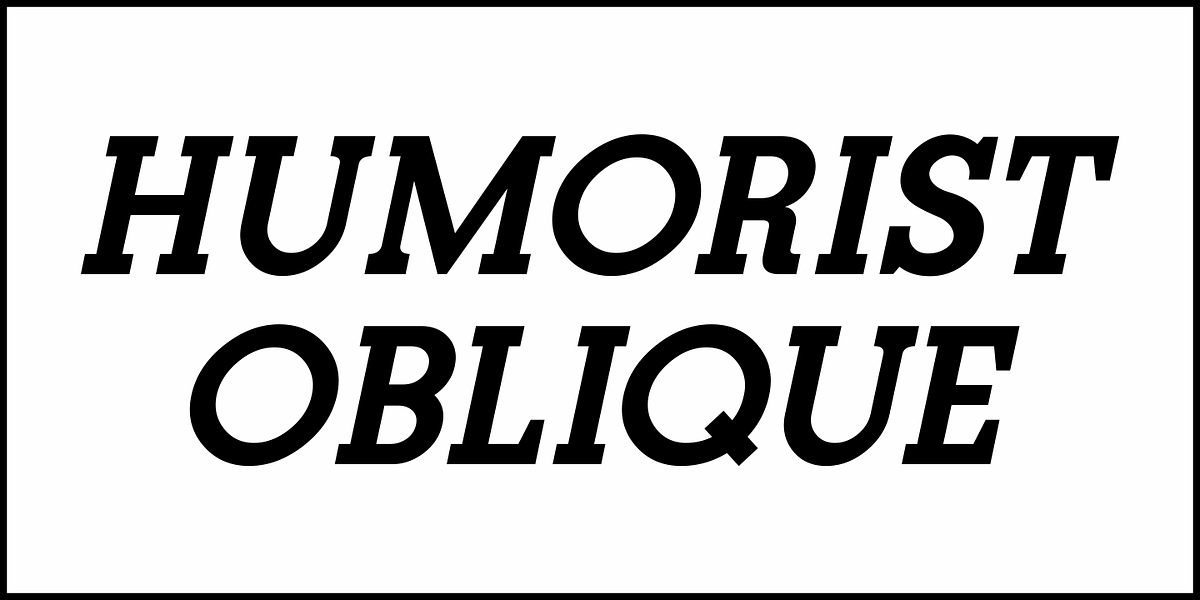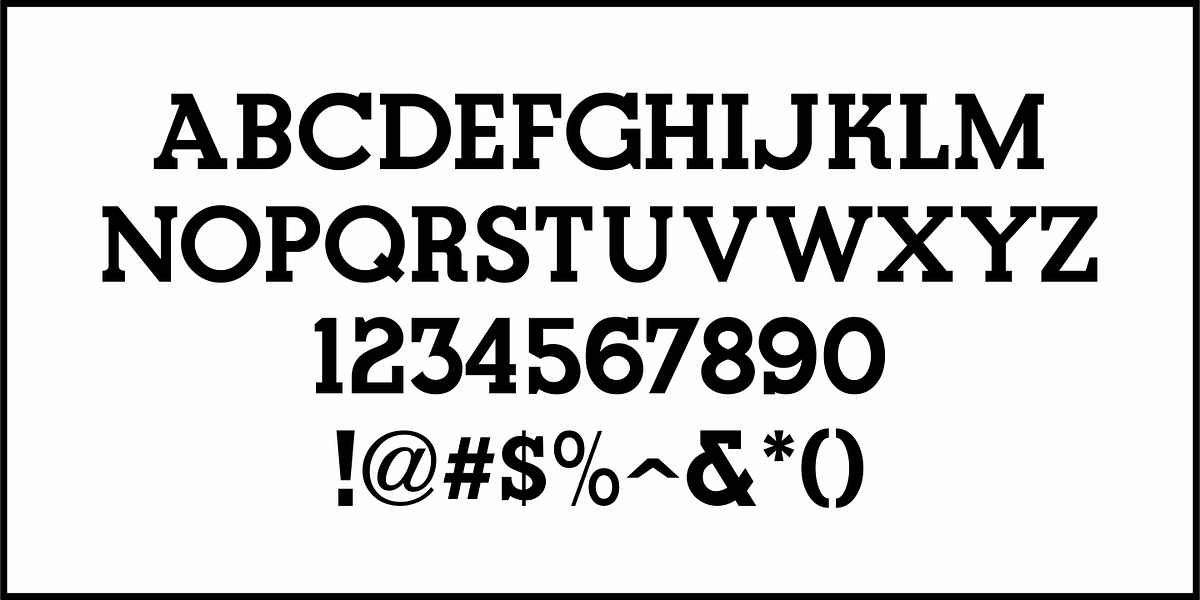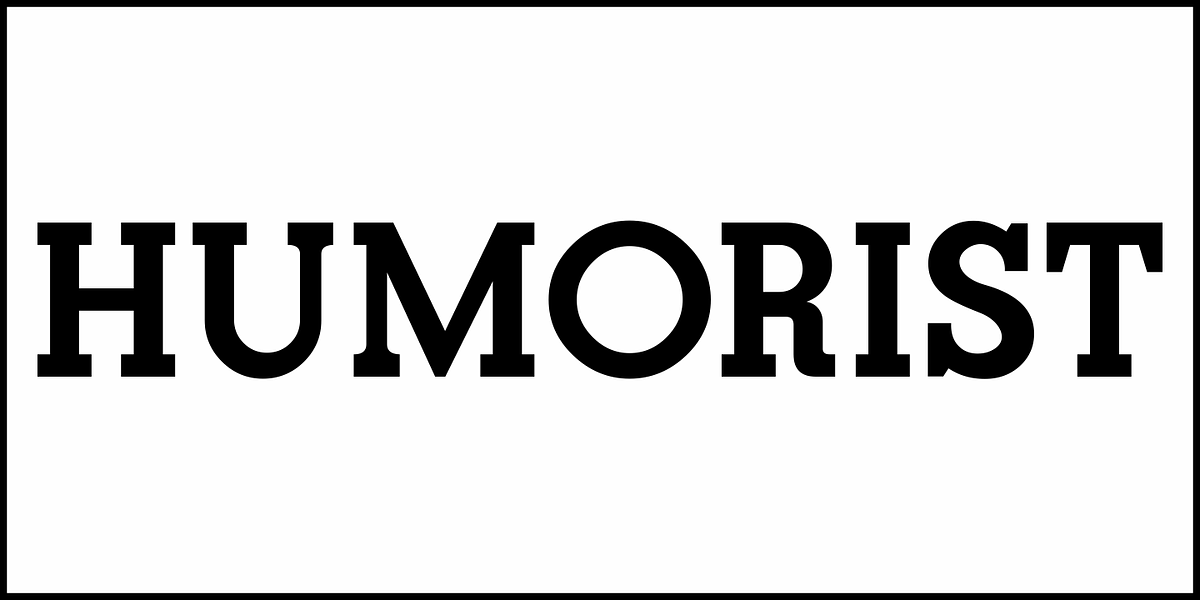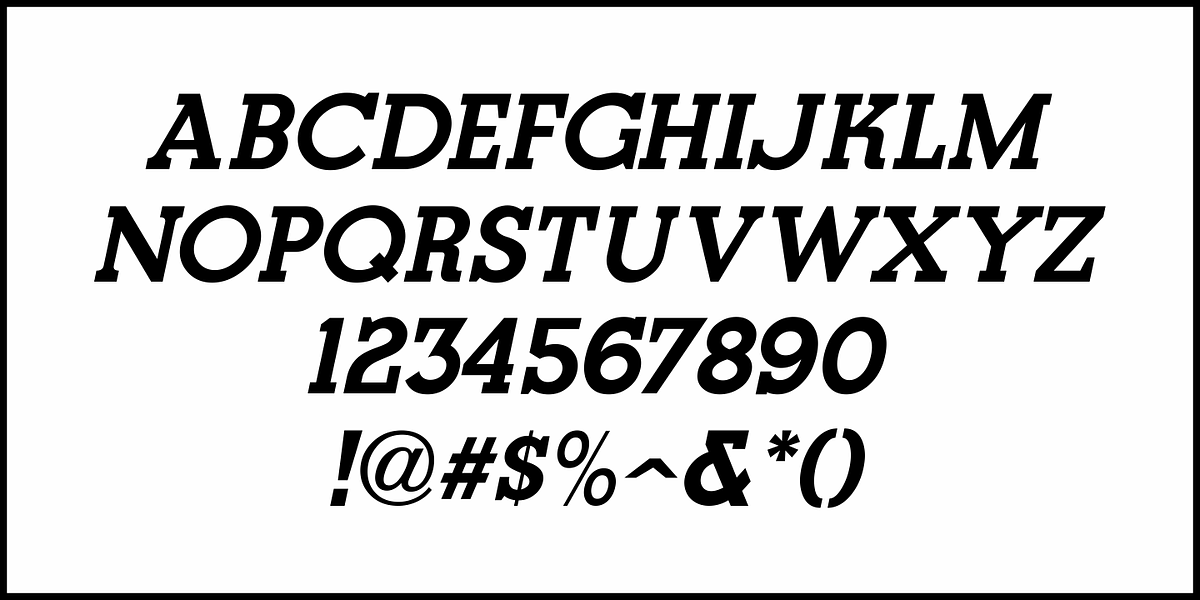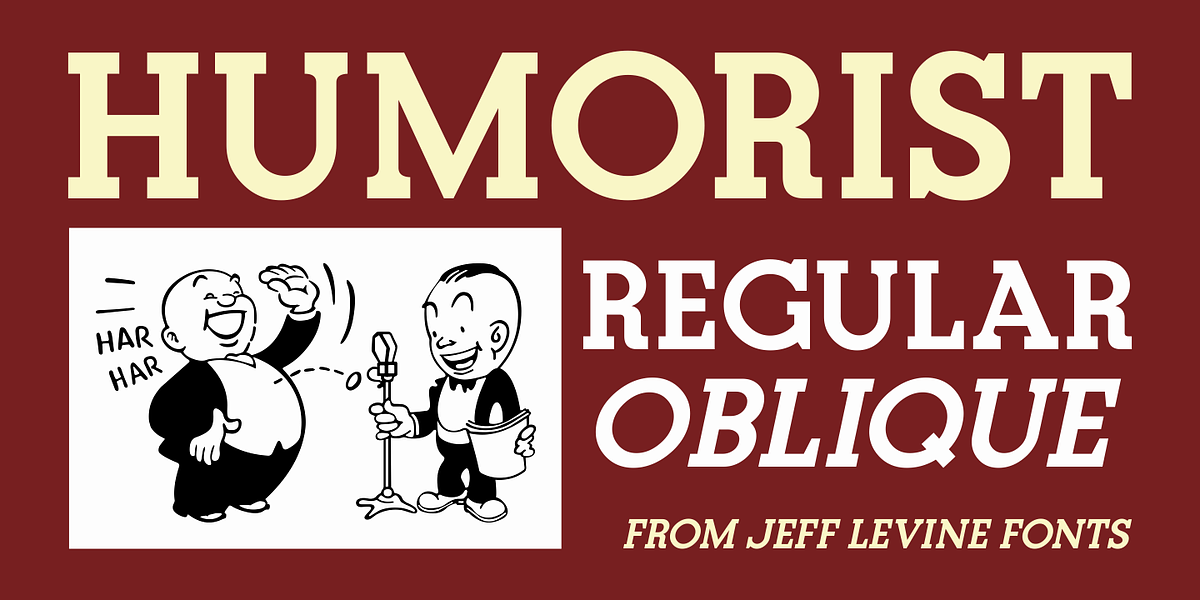
Humorist JNL
The May 7, 1936 issue of “The Film Daily” carried an ad for the Will Rogers Memorial Hospital Fund. (In August of 1935 Rogers, along with famed aviator Wiley Post died in a plane crash.)
The lettering for the ad was in a geometric slab serif similar to “Egyptian” and other fonts in use at the time, and was redrawn digitally as Humorist JNL in both regular and oblique versions.
While the fundraising for the hospital was a serious event, Rogers is remembered as a humorist, hence the font’s name of Humorist JNL.